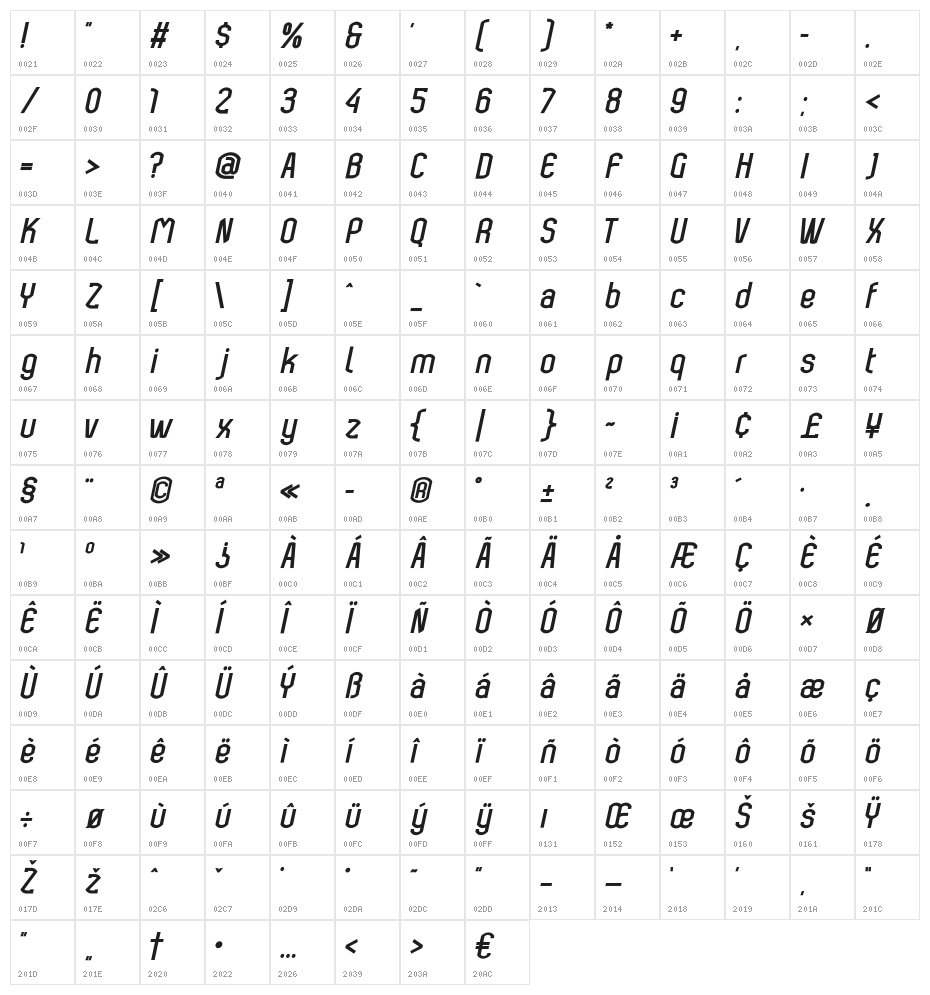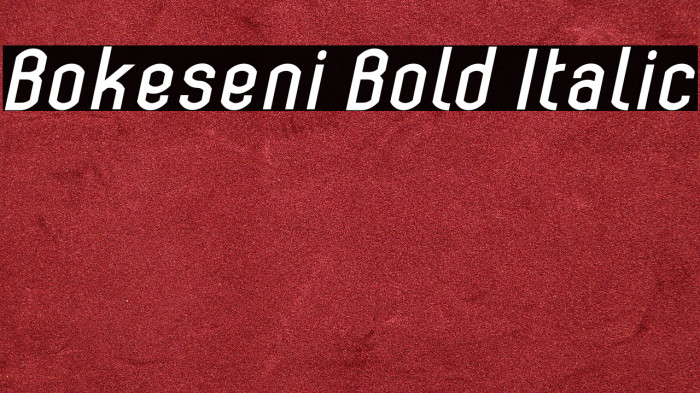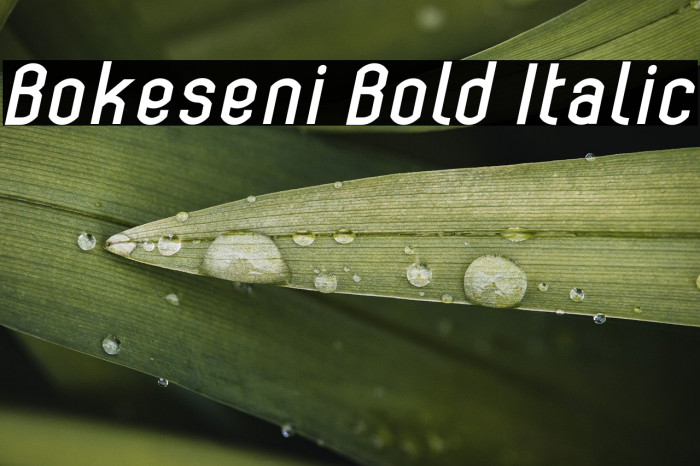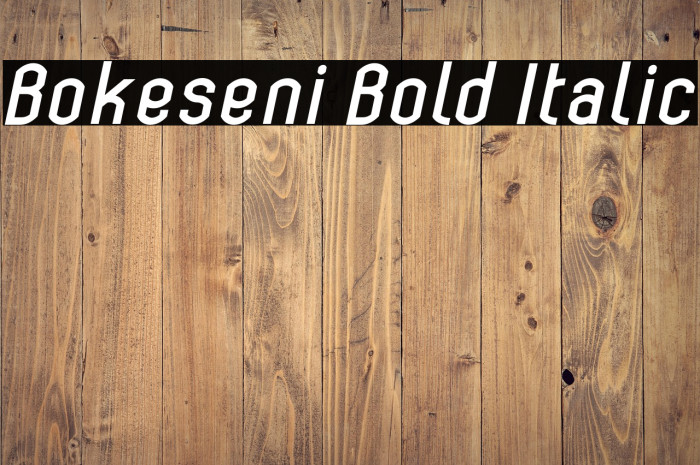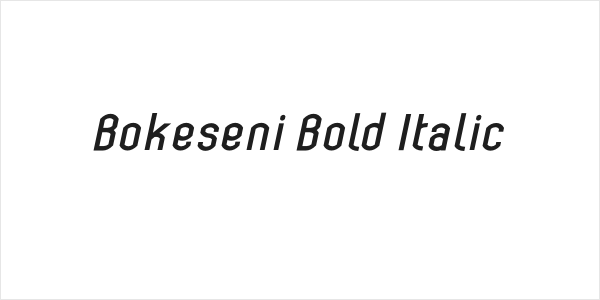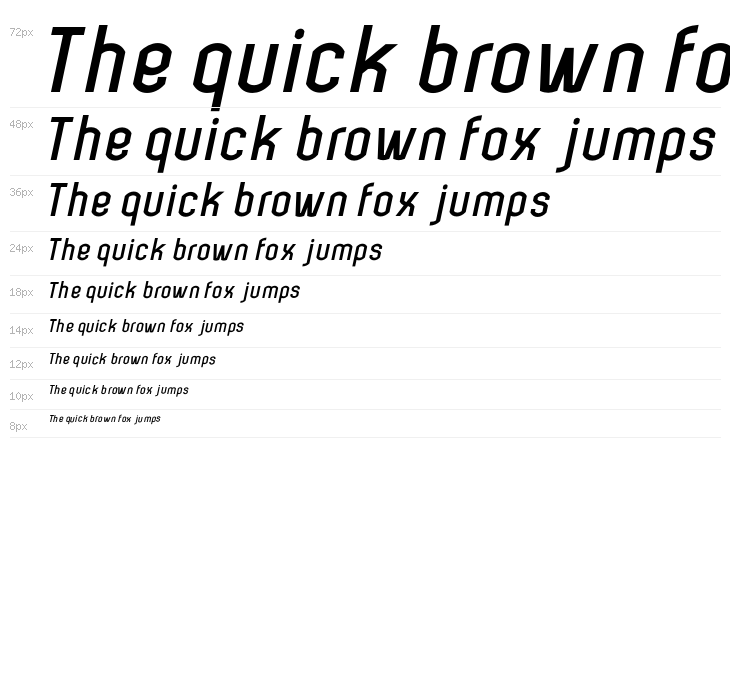
Bokeseni Bold Italic Font
Bokeseni Bold Italic Description
This font features a bold and italicized style with a modern and dynamic appearance. The characters are slightly slanted, giving a sense of movement and energy. The strokes are thick and consistent, providing a strong visual impact. The uppercase and lowercase letters are well-proportioned, with a slight geometric influence visible in the angular cuts and curves. The numbers are clear and legible, maintaining the bold aesthetic. Special characters are designed to match the overall style, ensuring coherence across all glyphs. This font is suitable for projects that require a bold statement and a contemporary feel.
| Proposed Projects | Ideal for branding, advertising, headlines, and posters where a strong and modern look is desired. |